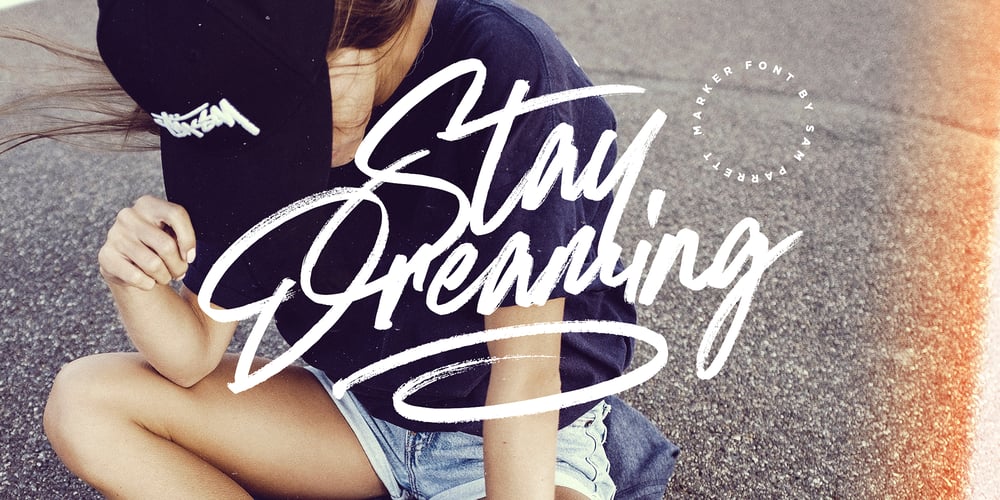
Stay Dreaming Font Family was designed by Sam Parrett and published by Set Sail Studios. Stay Dreaming contains 3 styles and family package options. Introducing Stay Dreaming SVG Font! An expressive, streetwise script font with a fast flow and dry textures to the max. It’s a bold choice of typography ideal for injecting a confident, custom-made style to your design project.Stay Dreaming is packed full of extra features; The script font includes a full alternate set of characters, as well as a set of 26 Swashes, these fast strokes are ideal for underlining the script font and giving your text that extra flair & customized feel.Language Support is provided for; English, French, Italian, Spanish, Portuguese, German, Swedish, Norwegian, Danish, Dutch, Finnish, Indonesian, Malay.